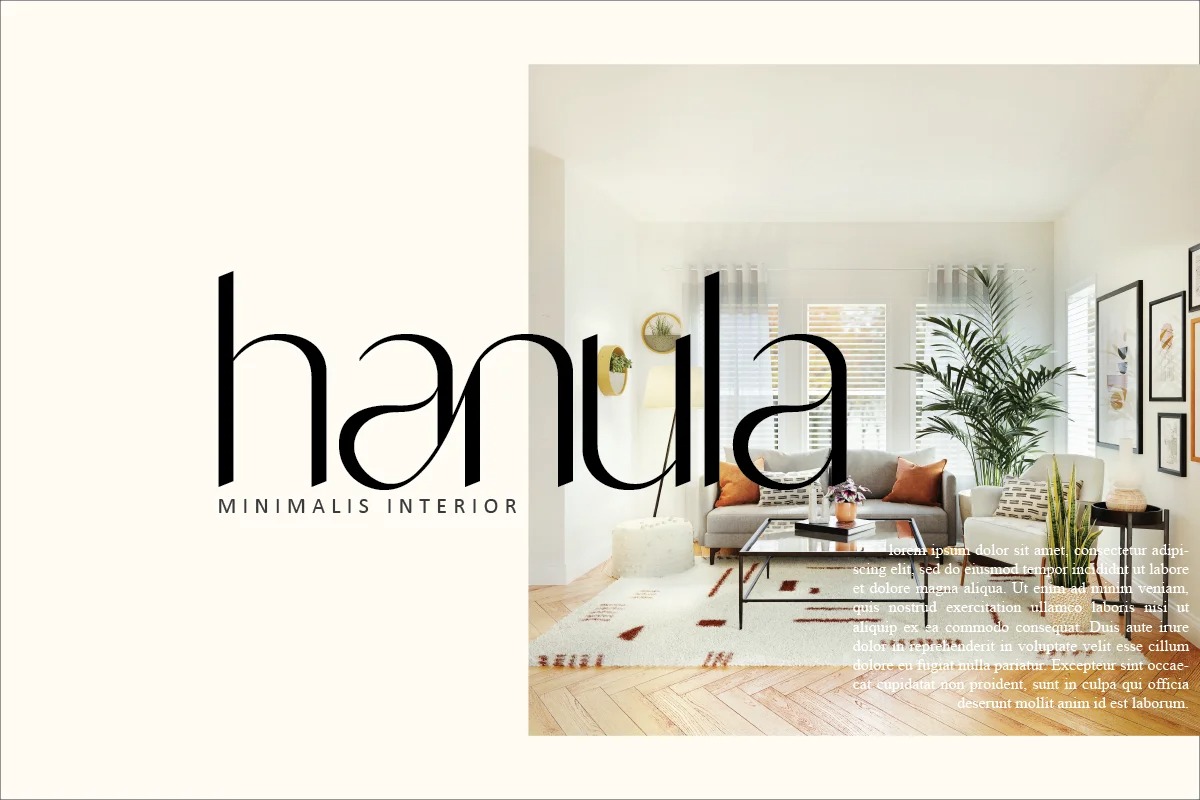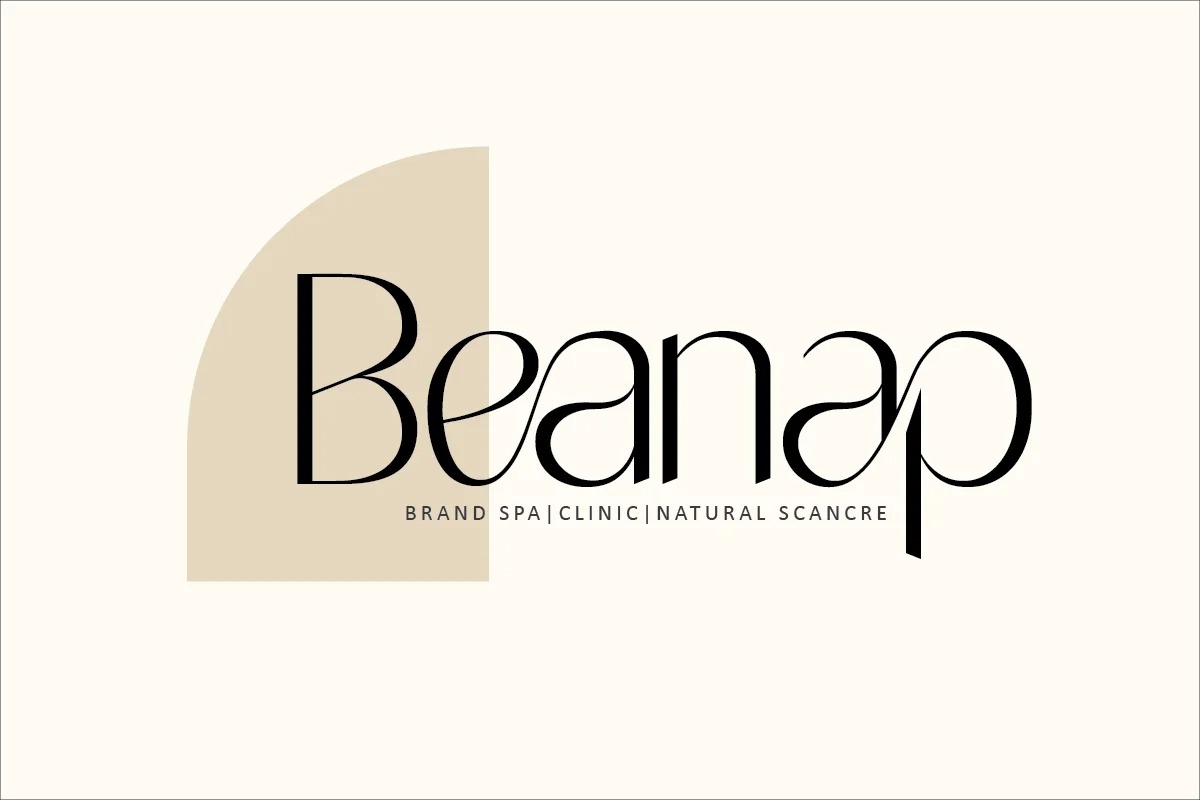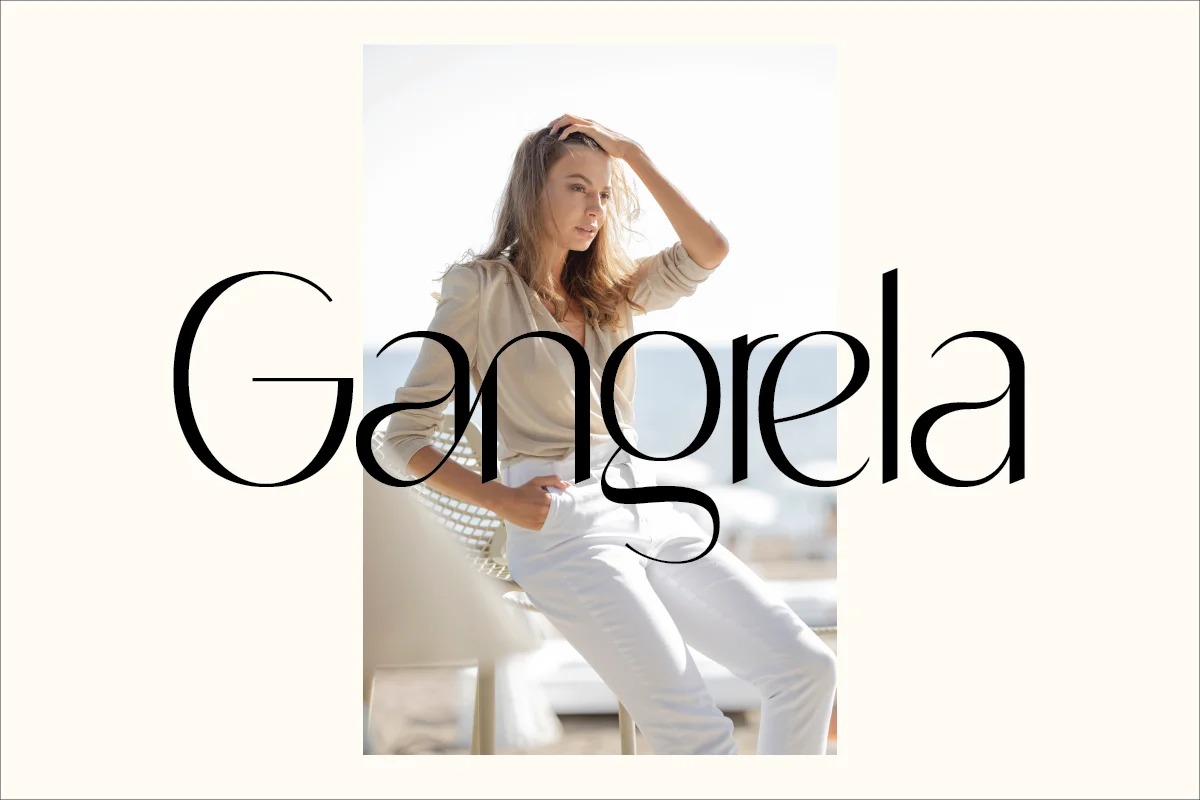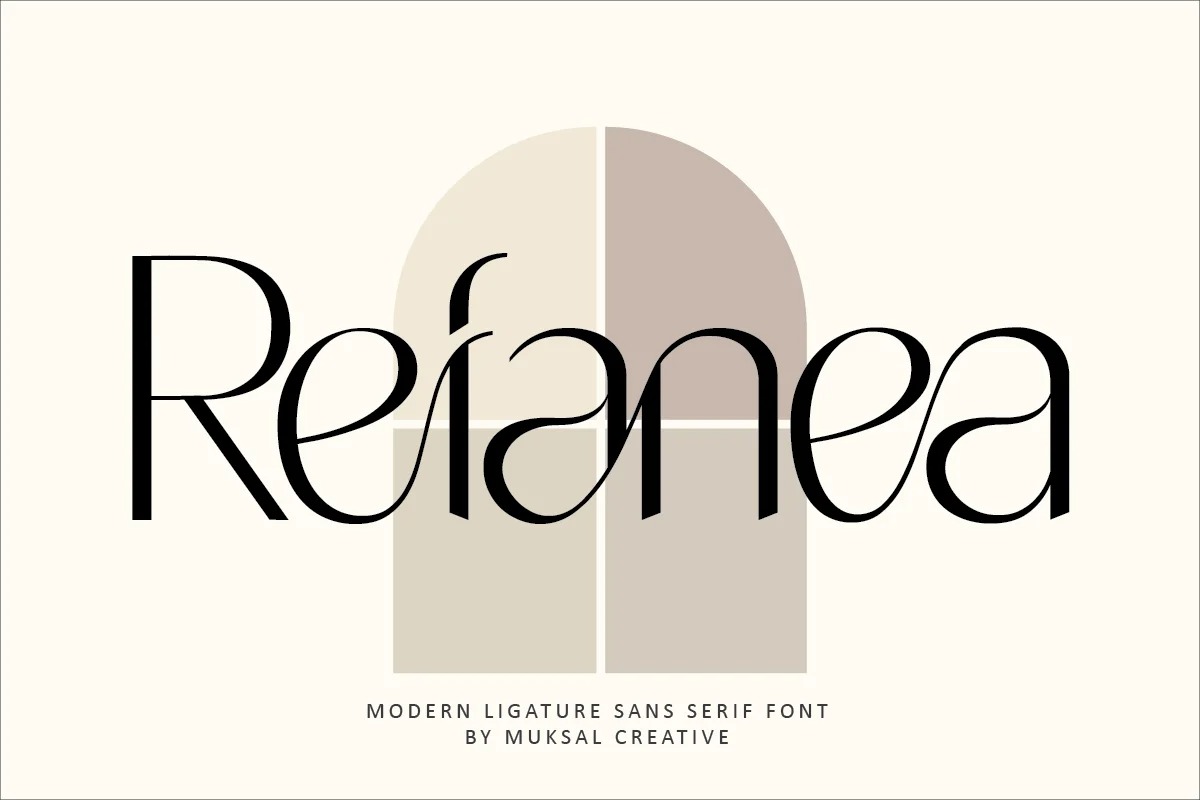
Refanea Sans Serif Font
If you’re looking for a lovely, beautiful sans serif font to attract your audiences or customers then we’ve got the font for you! Rafanea Modern ligature sans serif font, special glyphs, ornament and multilingual support. It’s a very versatile font that works great in large and small sizes. Perfect for editorial projects, Logo design, Clothing Branding, product packaging, magazine headers, or simply as a stylish text overlay to any background image.